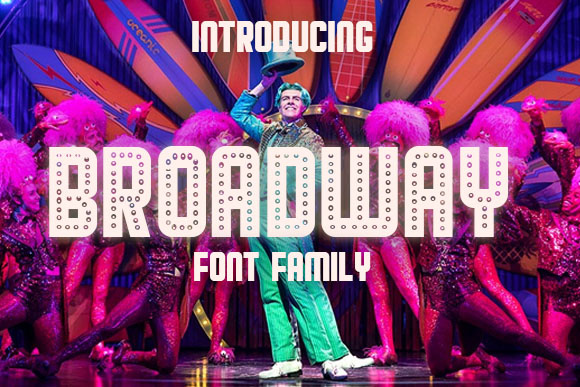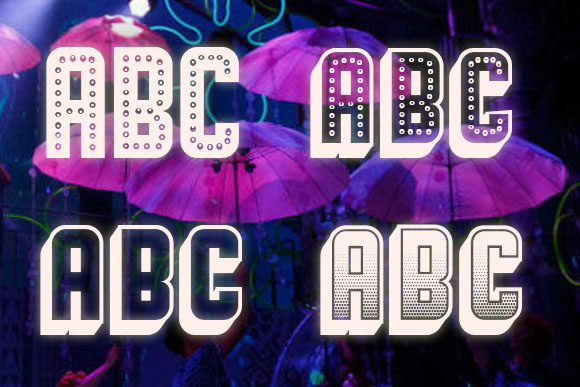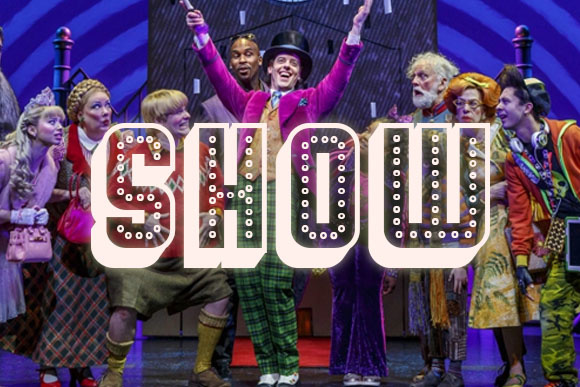
About the Broadway Font
Elevate your designs with Broadway Font, a font that combines sophistication with readability. Broadway is an awesome font family. It suits great for various prints, flyers, banners, and more.
Broadway’s strong, condensed forms make it ideal for headlines, posters, and short impactful branding statements. Its bold personality commands attention, making it perfect for projects needing a powerful visual presence. However, its weight and condensed nature render it unsuitable for body text or long passages; readability suffers at smaller sizes.
For optimal visual balance, pair Broadway with a clean sans-serif like Helvetica for a modern contrast, or a more traditional serif such as Garamond for a classic, sophisticated feel. A script font like Edwardian Script ITC could add a touch of elegance for certain applications, provided it is used sparingly to avoid visual clutter.
Broadway projects a confident, almost theatrical personality. It is best suited for brands aiming for a strong, memorable image—think vintage-inspired designs, theatrical productions, or bold product packaging.
Broadway Font Usage Examples
Broadway Font Example